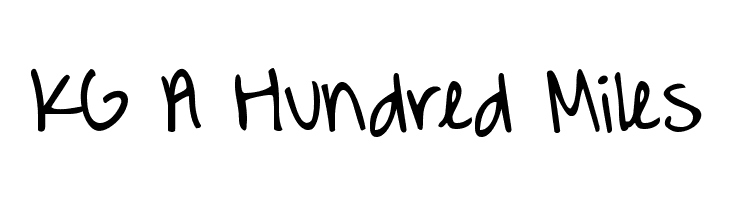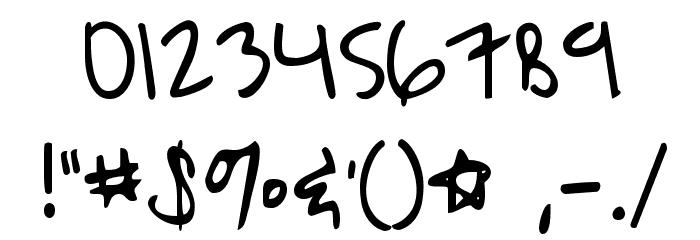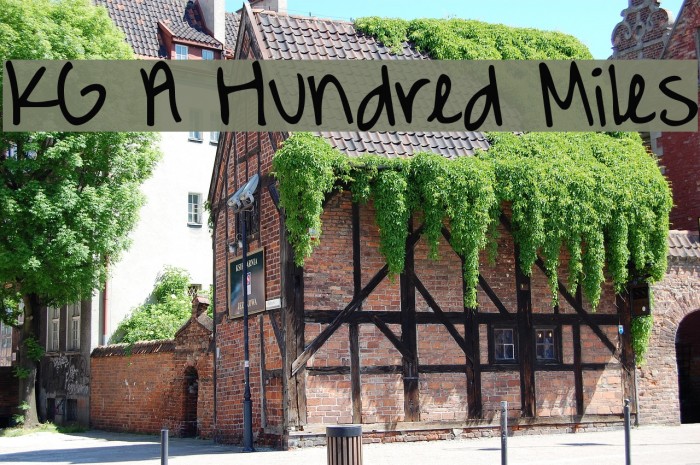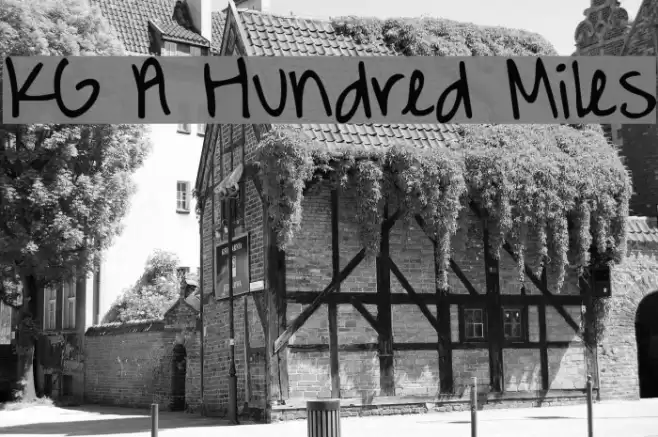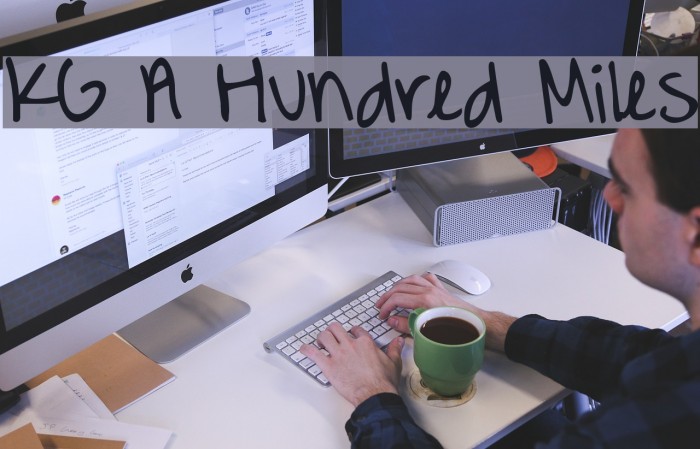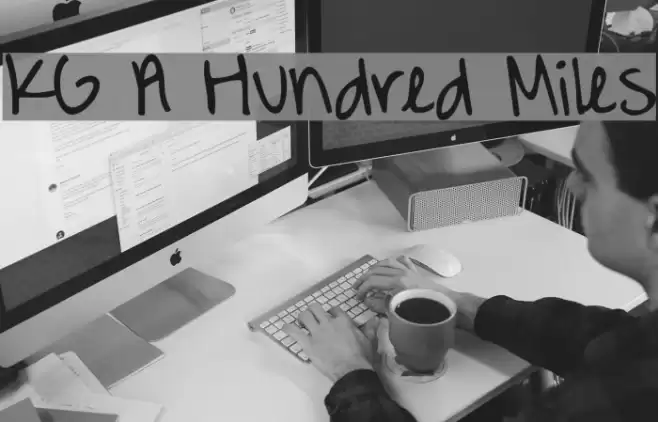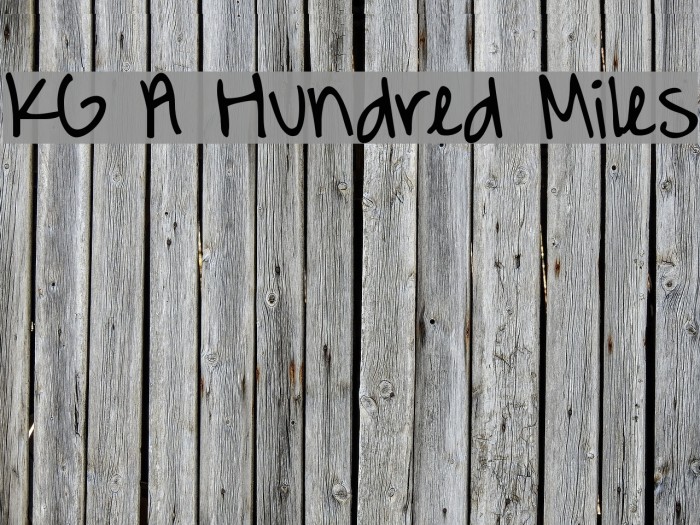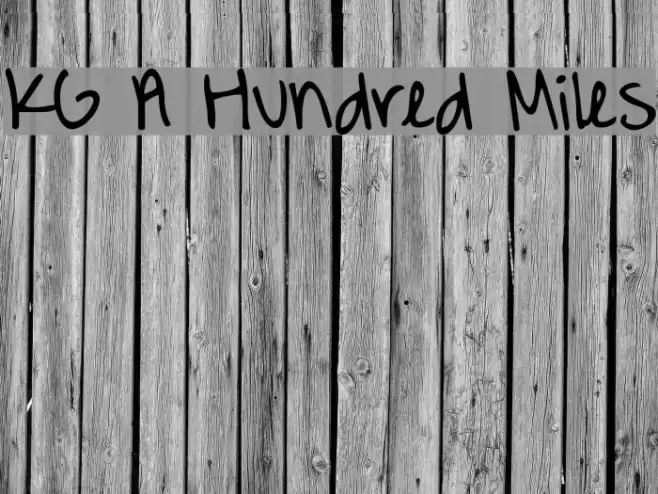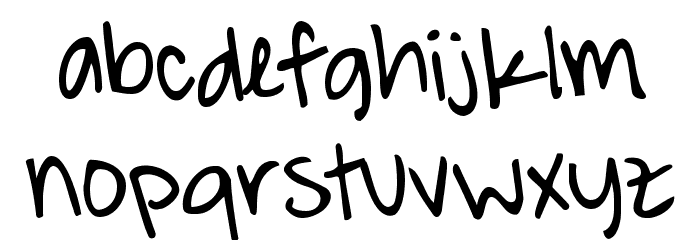
KG A Hundred Miles Font
KG A Hundred Miles Description
This font features a playful and casual handwritten style, characterized by its smooth, flowing lines and slightly irregular shapes. The letters have a natural, organic feel, with a slight tilt that adds to the informal aesthetic. The uppercase and lowercase letters maintain a consistent style, while the numbers and special characters complement the overall look. The strokes are uniform in thickness, providing a balanced appearance that is easy to read. This font exudes a friendly and approachable vibe, making it suitable for projects that require a personal touch.
| Overall Style | Casual |
| Use Case | Headlines, Informal text, Personal projects |
| Proposed Projects | Ideal for greeting cards, personal invitations, children's books, and informal branding. |